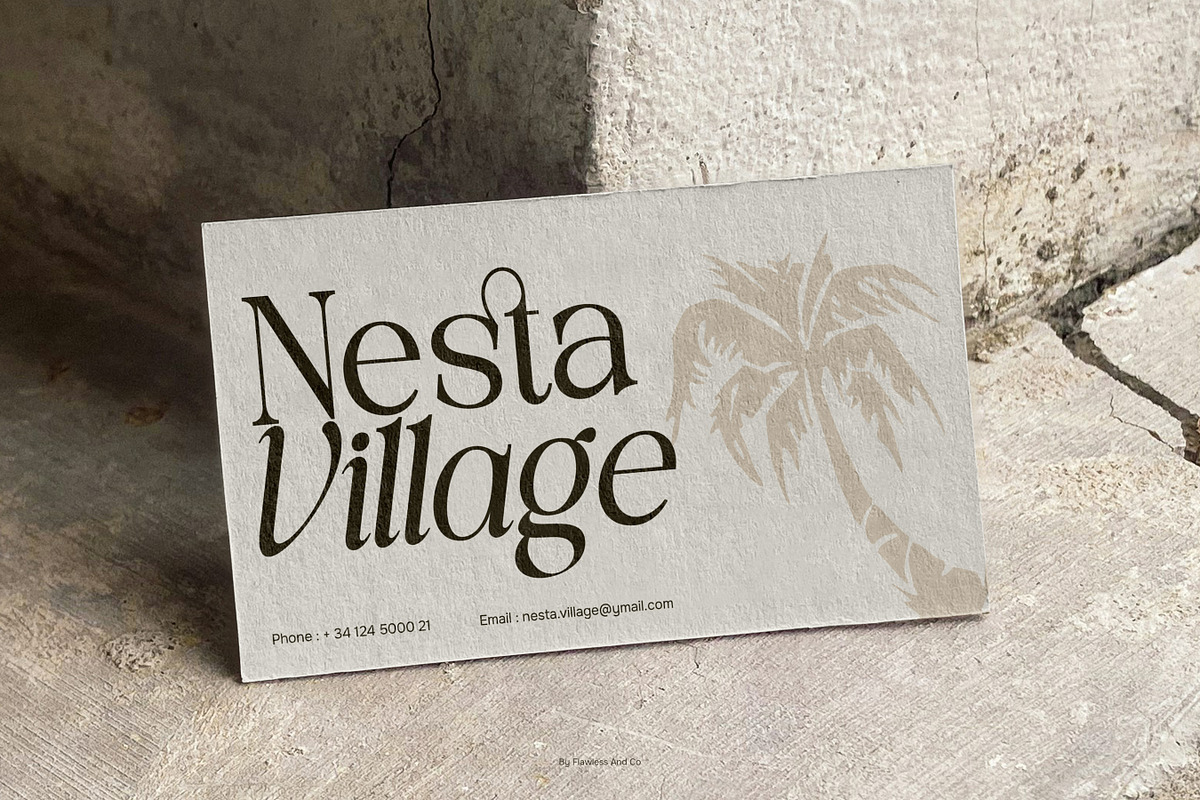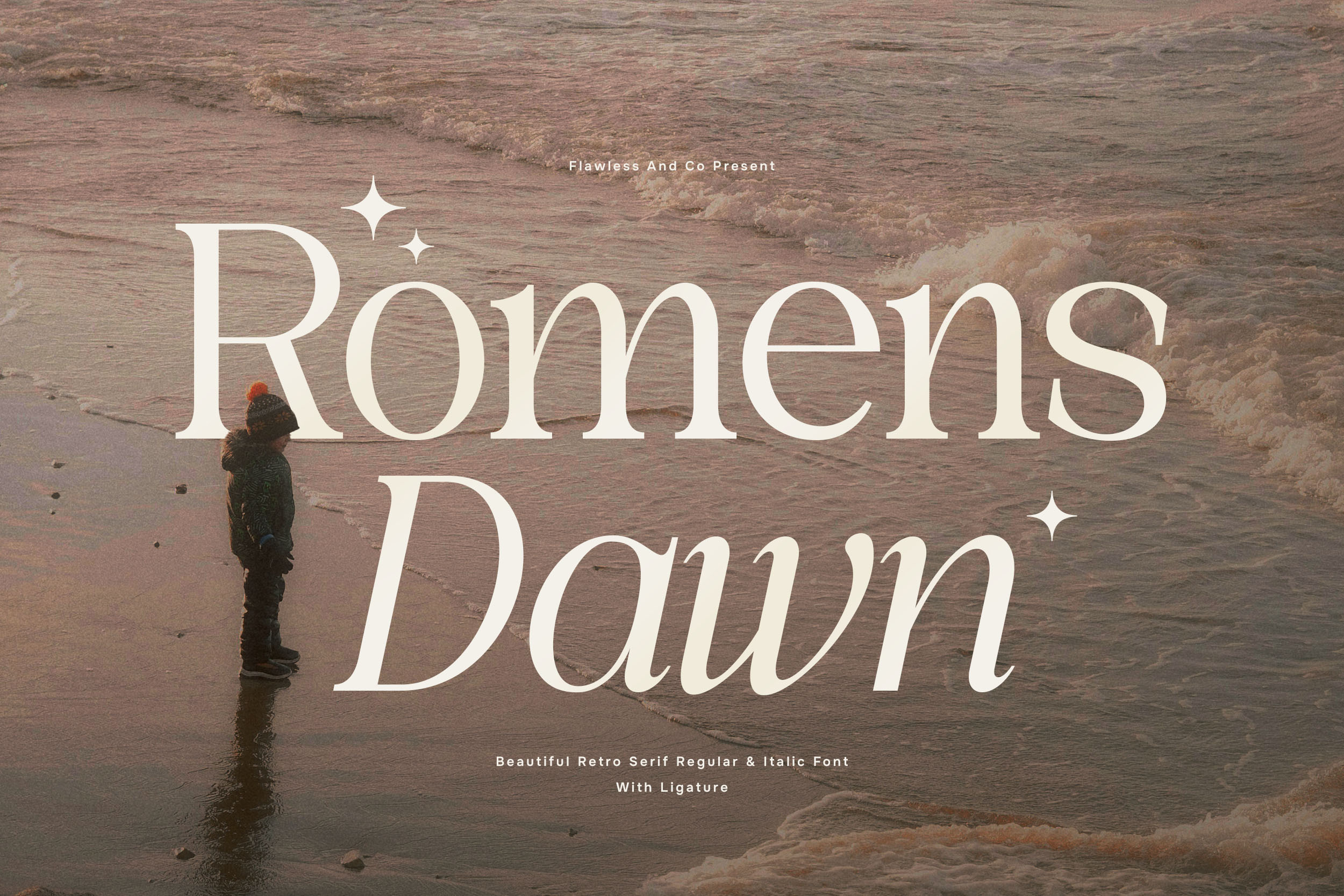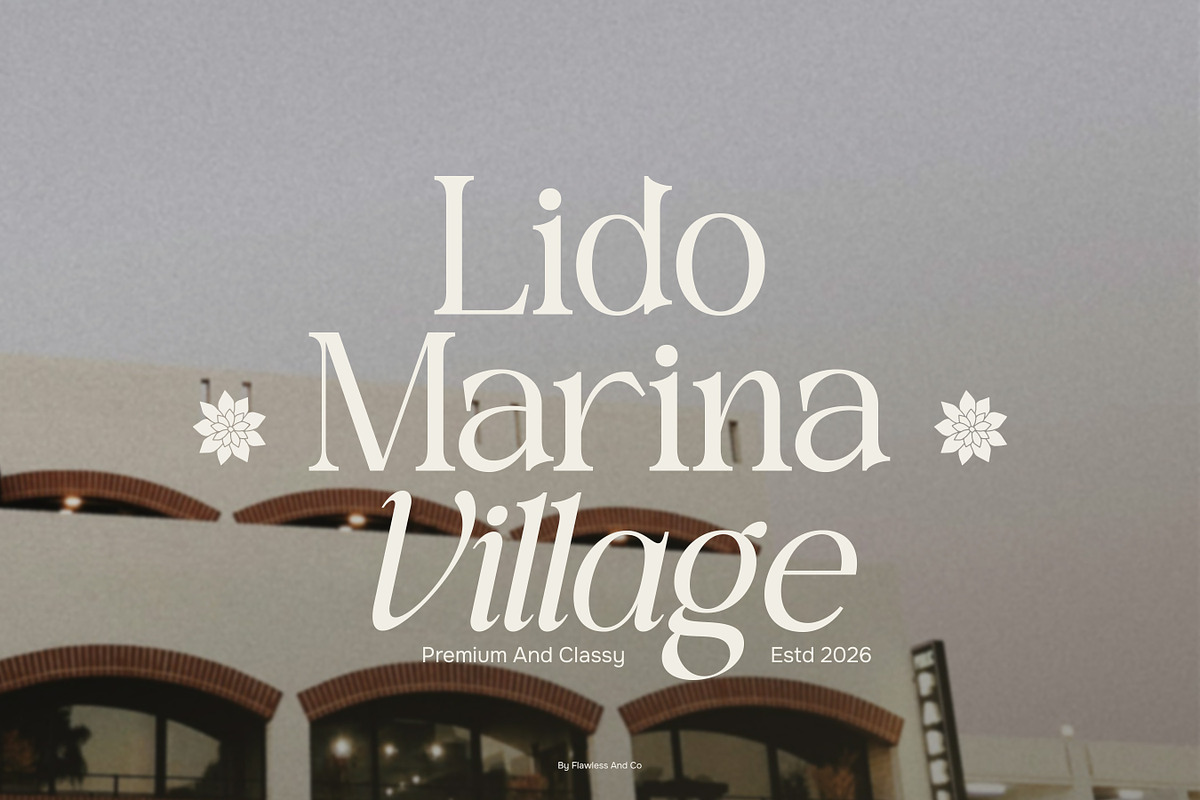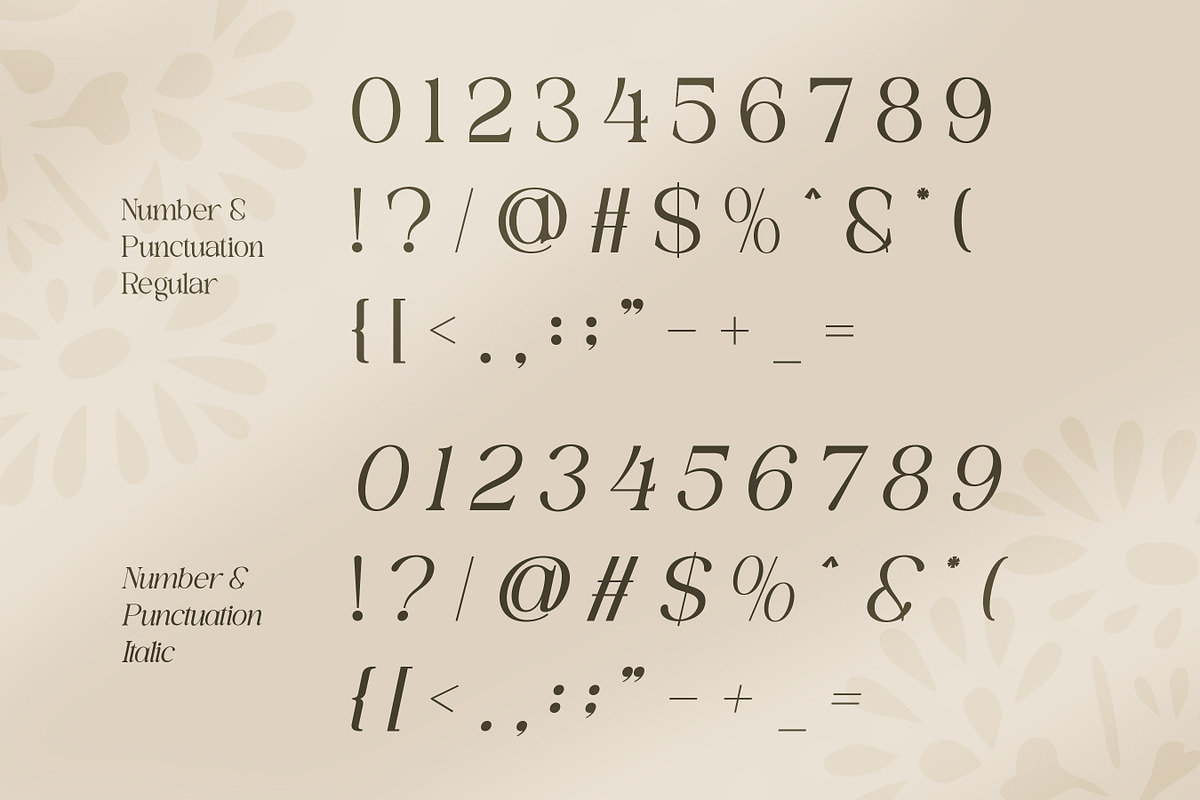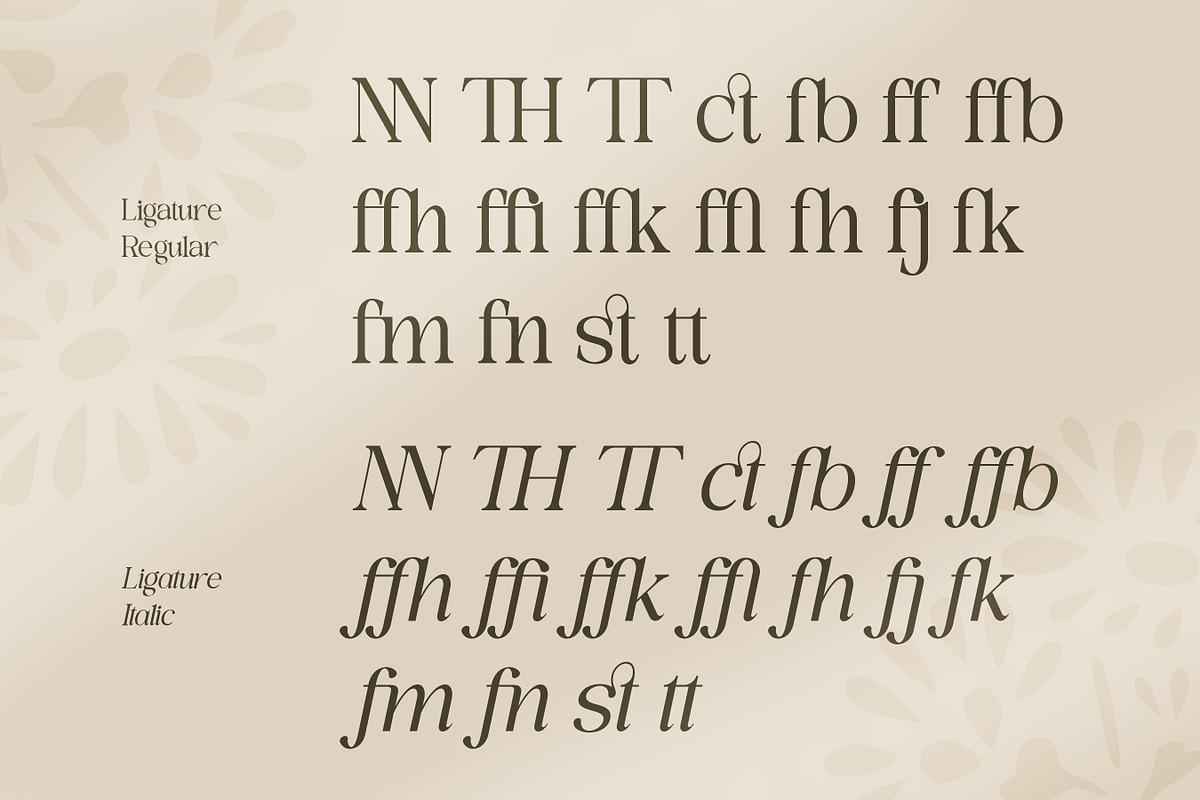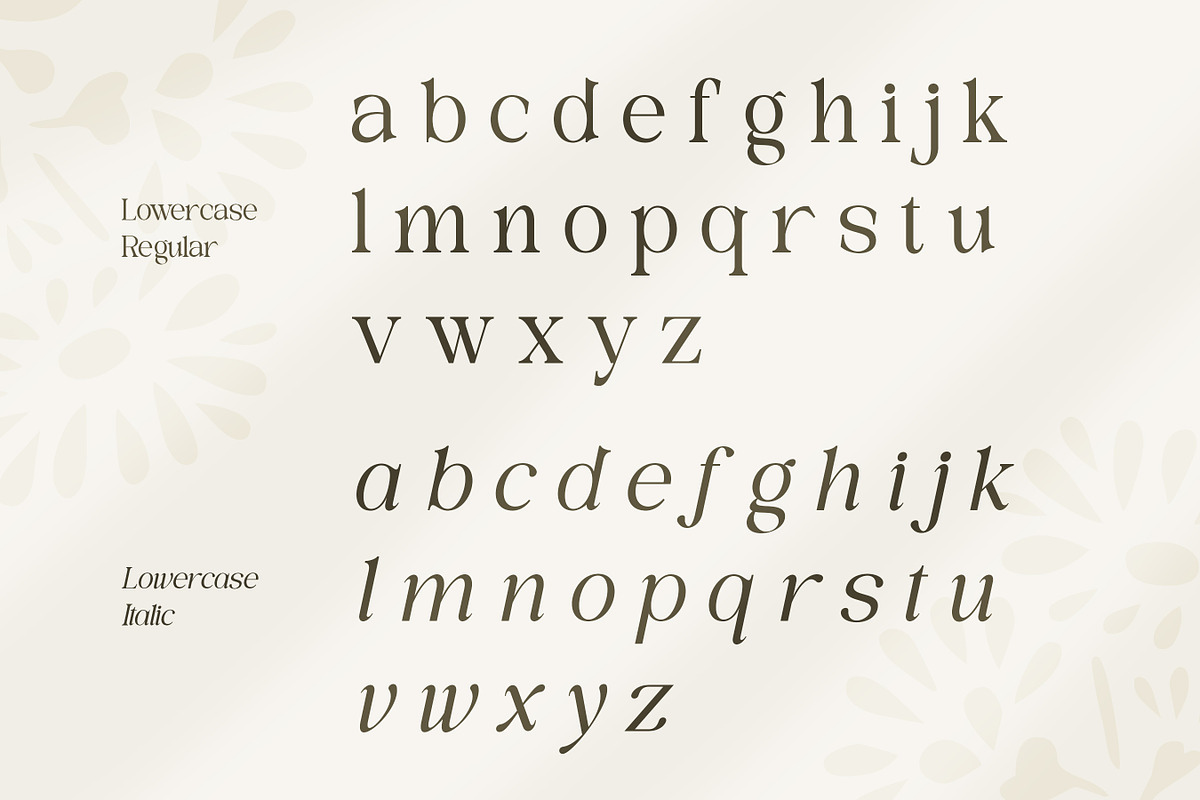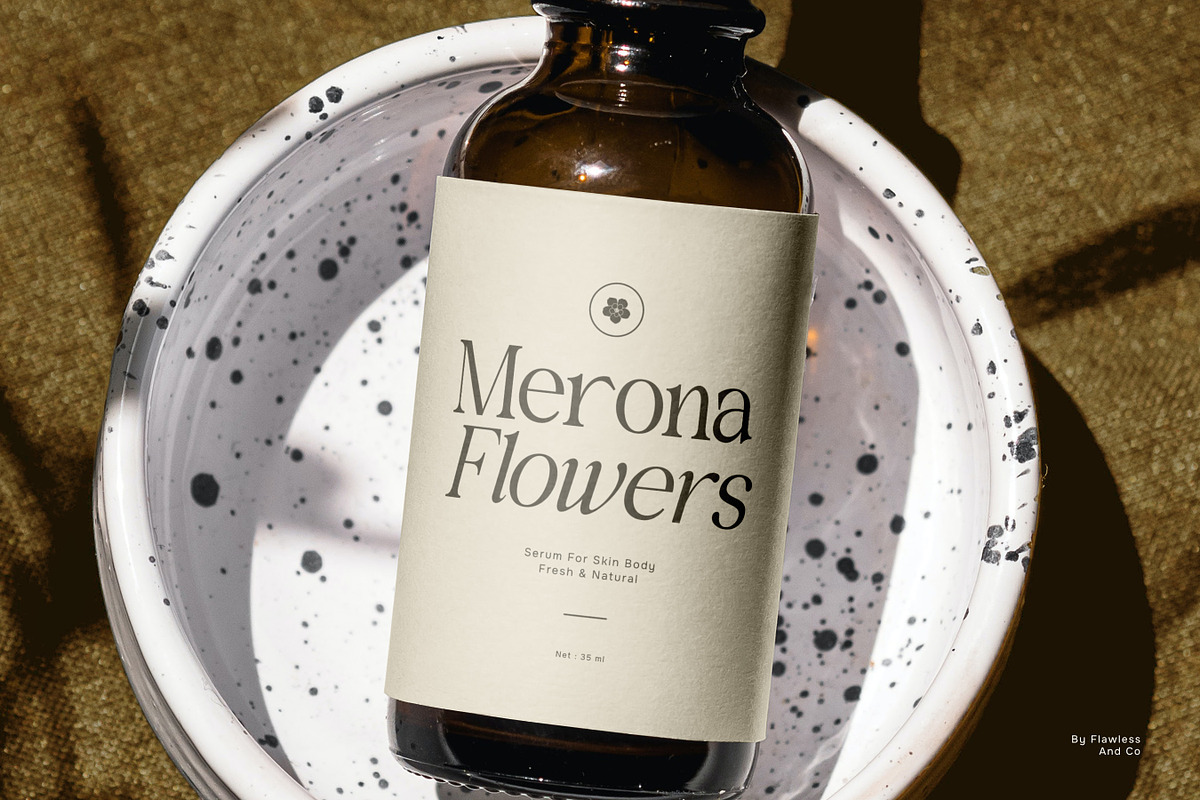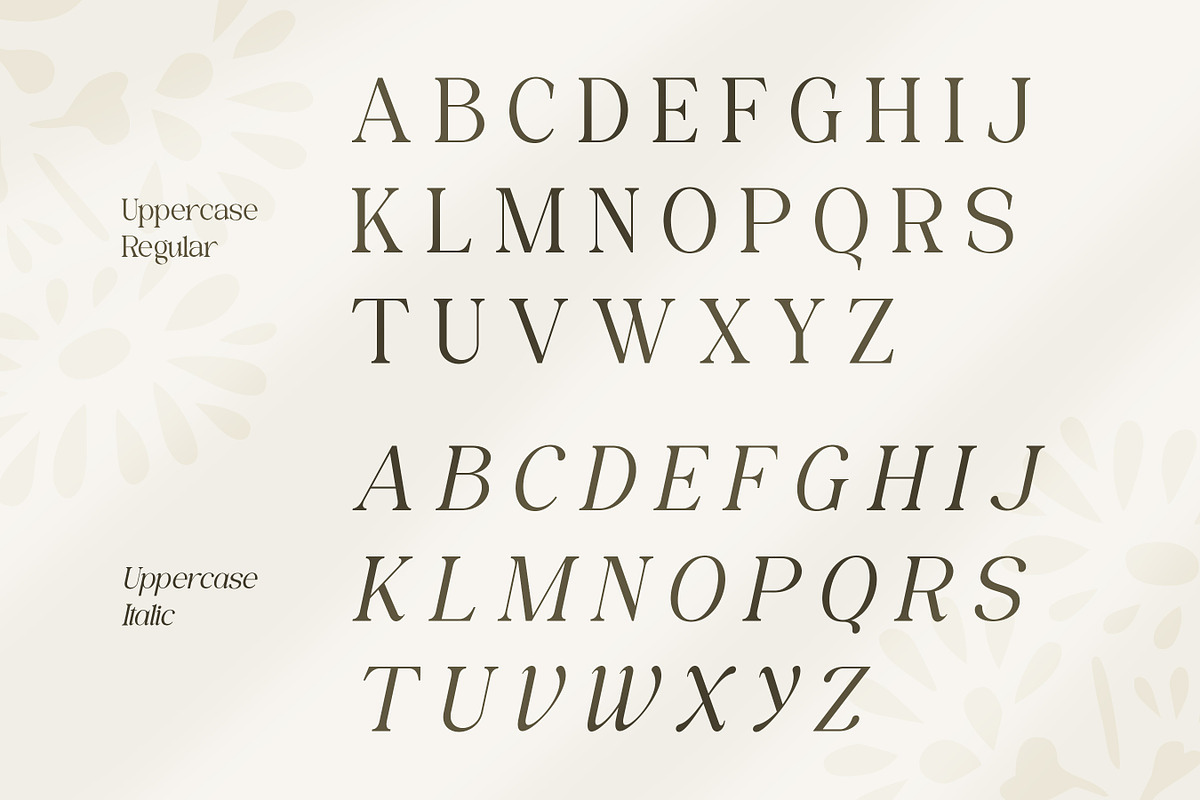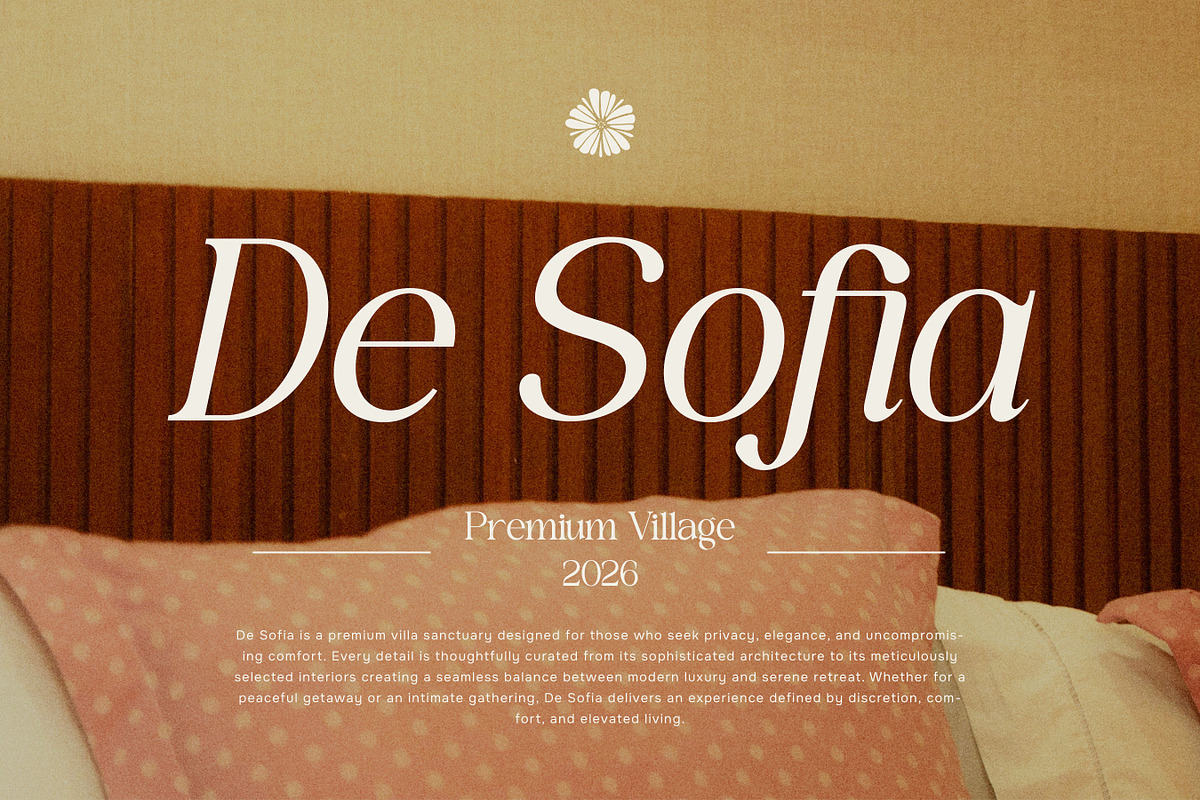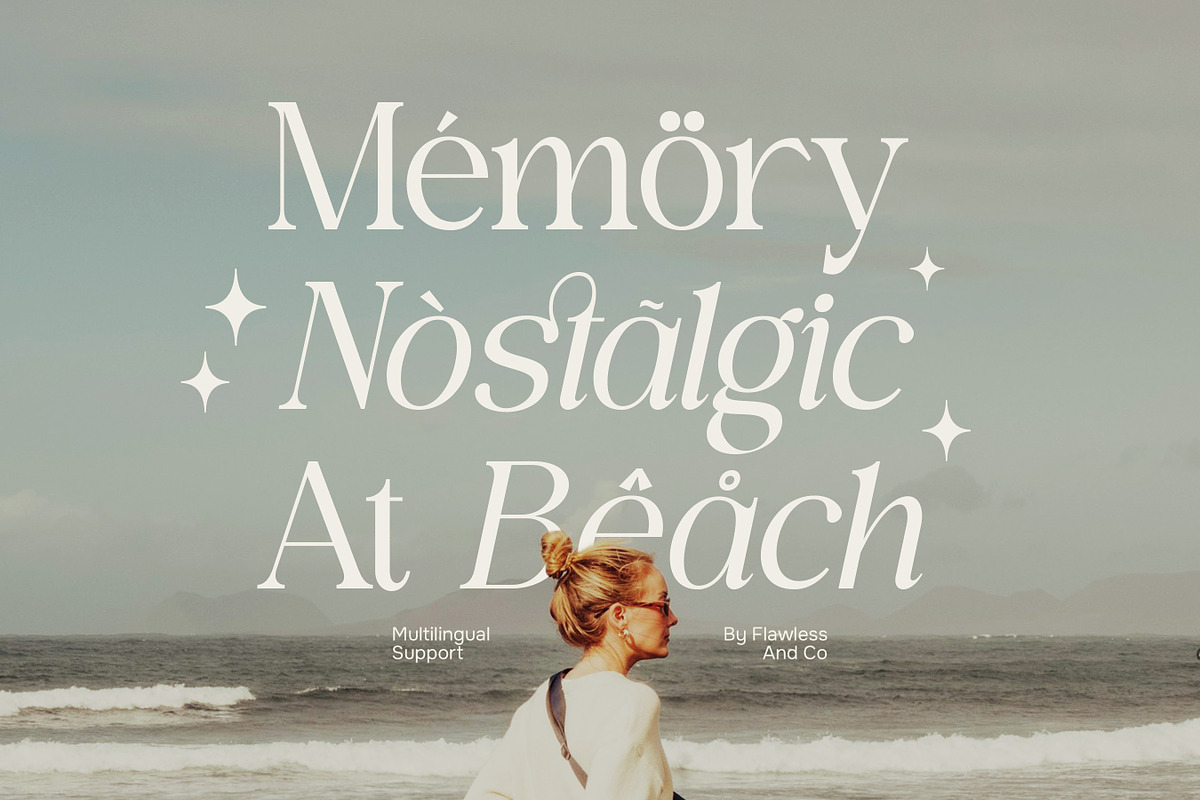
Romens Dawn - Retro Serif Font
Romens Dawn – Beautiful Retro Serif Font
Romens Dawn is a retro serif duo font crafted to deliver a timeless and beautiful appealing typographic style. Combining regular and italic versions, this font offers a versatile design solution for creating elegant and expressive layouts. Inspired by vintage typography, Romens Dawn features refined serif shapes, smooth curves, and balanced proportions that create a warm and classic atmosphere. The regular style provides structure and readability, while the italic style introduces a soft, flowing character that adds movement and emphasis to your text.
- Regular & Italic Styles
Who Should Use Romens Dawn?
Romens Dawn is perfect for designers, creatives, and brands seeking a retro serif font duo that brings elegance, flexibility, and a visually pleasing style to their designs.
Suitable For:
Logo and brand identity design Vintage and retro themed projects Editorial layouts and magazine design Packaging and product labels Posters and promotional materials Social media graphics Website headers and digital design Creative typography compositions